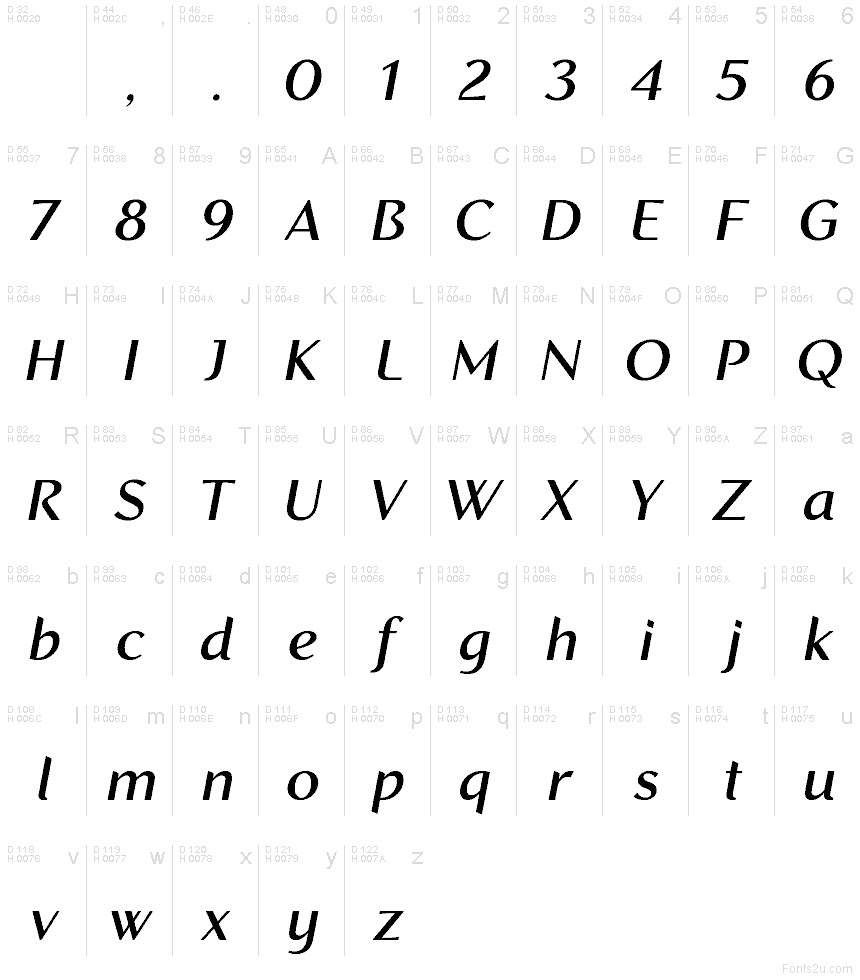
Recline Medium Italic font by Digitype Studio is a free sans serif font. Part of the Recline family, it leans forward with confident momentum-clean curves, tight rhythm, and crisp, angled cuts that feel speedy without getting spiky. The medium weight keeps strokes sturdy, so titles stay punchy while small subheads remain legible. It’s the kind of italic that reads as a stance, not an afterthought.
Using Recline Medium Italic, headlines snap to attention and carry a sleek, modern pulse. It shines on sports logos, tech branding, magazine covers, hero banners, product packaging, and bold posters. This free font also holds up in social ads and event graphics where quick impact matters. Pair it with a neutral grotesk for body copy, or an upright from the Recline family to build a cohesive system.
Recline comes in a modern style featuring 10 weights, 5 straight & angled, making it easy to adapt to your design.